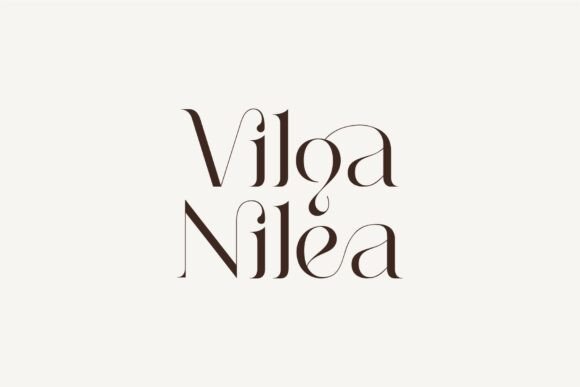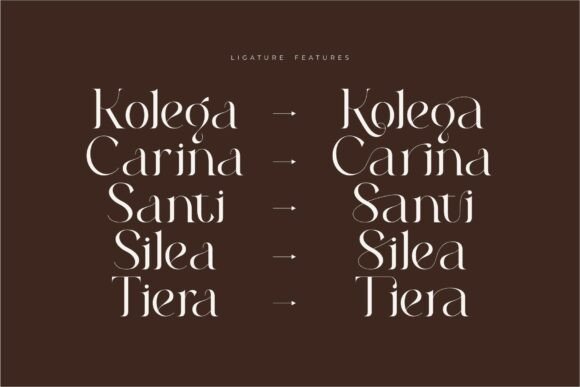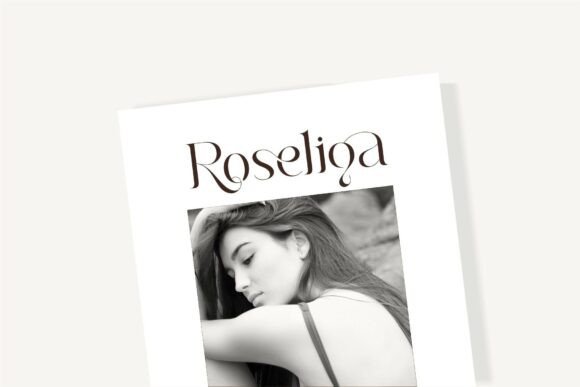
Introduction to Roilra Font
Remember the moment when you stumbled upon the perfect font for your creative project? The one that made your design come alive and leave a lasting impression? For many designers, that moment is what drives their passion for creating something truly exceptional. And that’s exactly what we’re excited to introduce you to: the Roilra Font – a sophisticated serif typeface that will elevate your designs to new heights.
Whether you’re working on a branding project, crafting an invitation, or designing luxury packaging, the Roilra Font is the perfect design resource to add a touch of elegance and sophistication. With its high-contrast strokes, sweeping curves, and stylish connections, this font is sure to make your text stand out. And the best part? It’s PUA-encoded, making it effortless to access all glyphs, swashes, and alternate characters to customize your creations with ease.
Key Features of Roilra Font
- High-quality design resource for creative projects, offering a unique aesthetic.
- Supports a wide range of languages, including Latin, Cyrillic, and Greek alphabets.
- Part of a comprehensive font family, offering a range of styles and weights to suit diverse design needs.
Honest Review: Roilra Font
As a designer, I’ve had the chance to work with numerous fonts for various creative projects. The Roilra Font is one such resource that caught my attention. Upon initial use, I found that it excels in providing a unique aesthetic for design work.
Here are some of the features that work well with the Roilra Font: ✨
- High-quality design that lends itself well to creative projects.
However, I did encounter a few limitations with the Roilra Font: ⚠️
- May not be suitable for projects requiring extensive font customization.
- Some users might find the font’s uniqueness to be a drawback, depending on their design preferences.
Overall, I found the Roilra Font to be a solid addition to any designer’s toolkit. While it may have some limitations, its high-quality design and free download option make it a great resource for designers working on creative projects.
Experiment with different font sizes and styles to add depth and visual interest to your designs.
Use Roilra Font for wedding invitations, birthday party invitations, and other creative projects that require a touch of elegance and sophistication.
Is the Roilra Font a high-quality font?
Yes, the Roilra Font is a high-quality font that has been carefully crafted to provide a professional and elegant look. The font features smooth lines, precise typography, and a wide range of characters, making it suitable for use in a variety of design applications, from print to digital media.